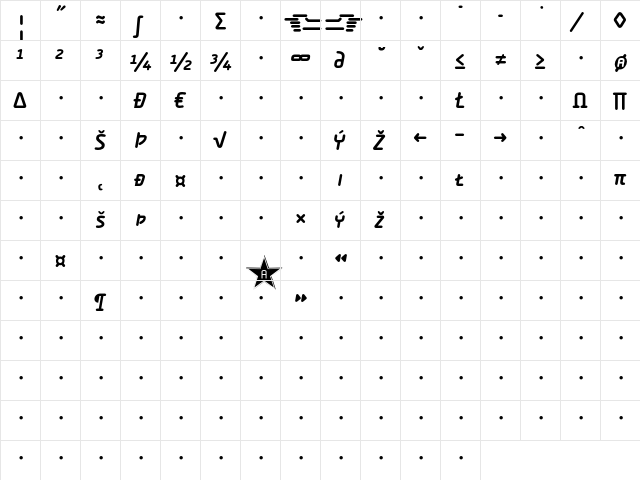
Alega-BoldSmallCapsItaExp Regular
| Foundry | Siegfried Rueckel, published by FontShop International for the FontFont library |
Design Context for Alega-BoldSmallCapsItaExp Typeface
Alega-BoldSmallCapsItaExp offers clean, dependable letterforms without strong stylistic allegiance, making it a practical choice for designers who need flexibility. Its bold stroke weight gives it real presence on the page.